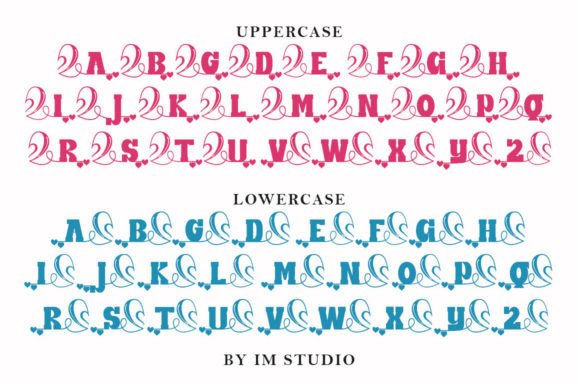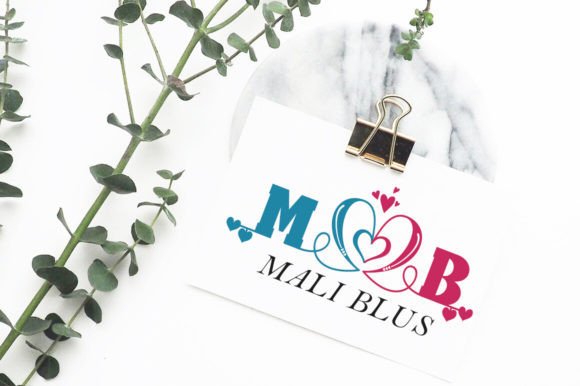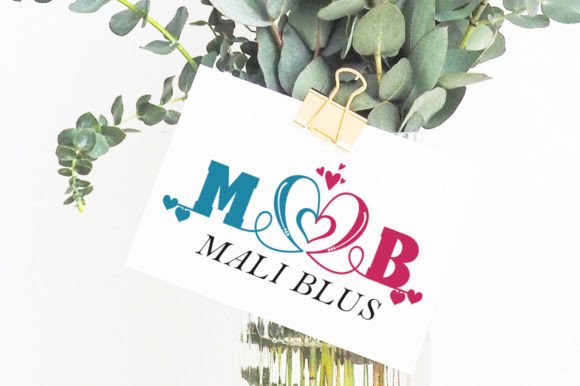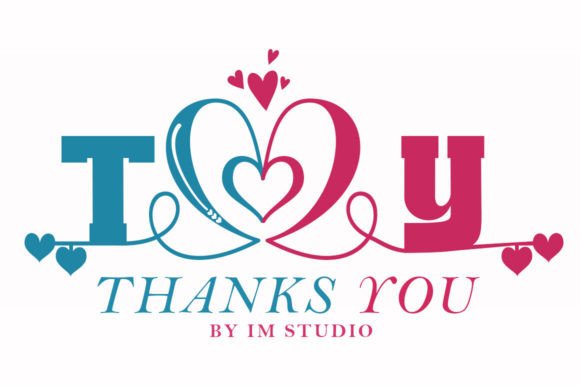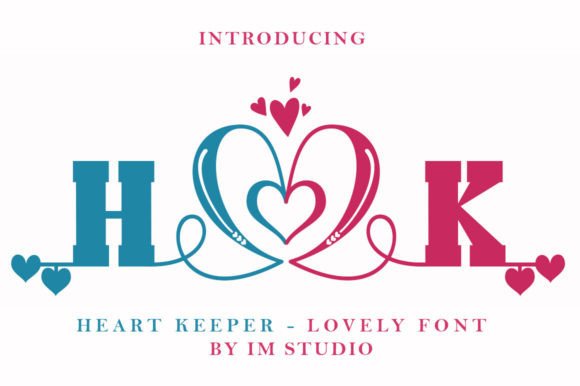
Introducing Heart Keeper Font: The Ultimate Valentine’s Day Decorative Font
Are you a designer, crafter, or DIY enthusiast looking for a unique and adorable font to make your Valentine’s Day projects stand out? Look no further than Heart Keeper Lovely, a decorative font that’s perfect for creating stunning Valentine’s Cards, t-shirts, invitations, book covers, posters, and more.
What is Heart Keeper Font?
Heart Keeper Lovely is a one-of-a-kind font that’s specifically designed to add a touch of love and sweetness to your Valentine’s Day projects. This beautiful font features delicate and intricate designs, with a lovely combination of hearts, flowers, and other romantic elements.
Key Features of Heart Keeper Font
• Unique and Adorable Design: Heart Keeper Lovely boasts a distinctive and charming design that will make your projects stand out from the crowd.
• Decorative and Versatile: This font is perfect for a wide range of projects, from Valentine’s Cards and t-shirts to invitations, book covers, and posters.
• Easily Customizable: Heart Keeper Lovely can be easily customized to fit your project’s specific needs, making it a great choice for designers and crafters.
• High-Quality Design: This font is designed with high-quality graphics, ensuring that it looks great even at large sizes.
How to Use Heart Keeper Font
Using Heart Keeper Lovely is easy and straightforward. Here are a few ways you can incorporate this beautiful font into your projects:
• Valentine’s Cards: Create stunning Valentine’s Cards with Heart Keeper Lovely as the main font. You can use it for the card’s title, message, or even the entire design.
• T-Shirts and Apparel: Add a touch of love and romance to your t-shirts, hoodies, and other apparel with Heart Keeper Lovely.
• Invitations: Make your Valentine’s Day invitations special with Heart Keeper Lovely. You can use it for the invitation’s title, subtitle, or even the entire text.
• Book Covers and Posters: Use Heart Keeper Lovely to create eye-catching book covers and posters that will grab attention.
Why Choose Heart Keeper Font?
There are many reasons why Heart Keeper Lovely stands out from other Valentine’s Day fonts. Here are a few:
• Uniqueness: Heart Keeper Lovely is a one-of-a-kind font that’s sure to make your projects stand out.
• Quality: This font is designed with high-quality graphics, ensuring that it looks great even at large sizes.
• Ease of Use: Heart Keeper Lovely is easy to use and customize, making it a great choice for designers and crafters of all levels.
• Versatility: This font can be used for a wide range of projects, from Valentine’s Cards to book covers and posters.
Tips and Tricks for Using Heart Keeper Font
Here are a few tips and tricks to help you get the most out of Heart Keeper Lovely:
• Experiment with Different Sizes: Try using Heart Keeper Lovely in different sizes to see how it looks. You may be surprised at how well it scales.
• Combine with Other Fonts: Don’t be afraid to combine Heart Keeper Lovely with other fonts to create a unique look.
• Use it for Titles and Headings: Heart Keeper Lovely is perfect for titles and headings. Use it to add a touch of love and romance to your projects.
Heart Keeper Lovely is a unique and adorable Valentine’s font that’s perfect for designers, crafters, and DIY enthusiasts. With its delicate and intricate design, this font is sure to add a touch of love and sweetness to your Valentine’s Day projects. Whether you’re creating Valentine’s Cards, t-shirts, invitations, book covers, or posters, Heart Keeper Lovely is the perfect choice.